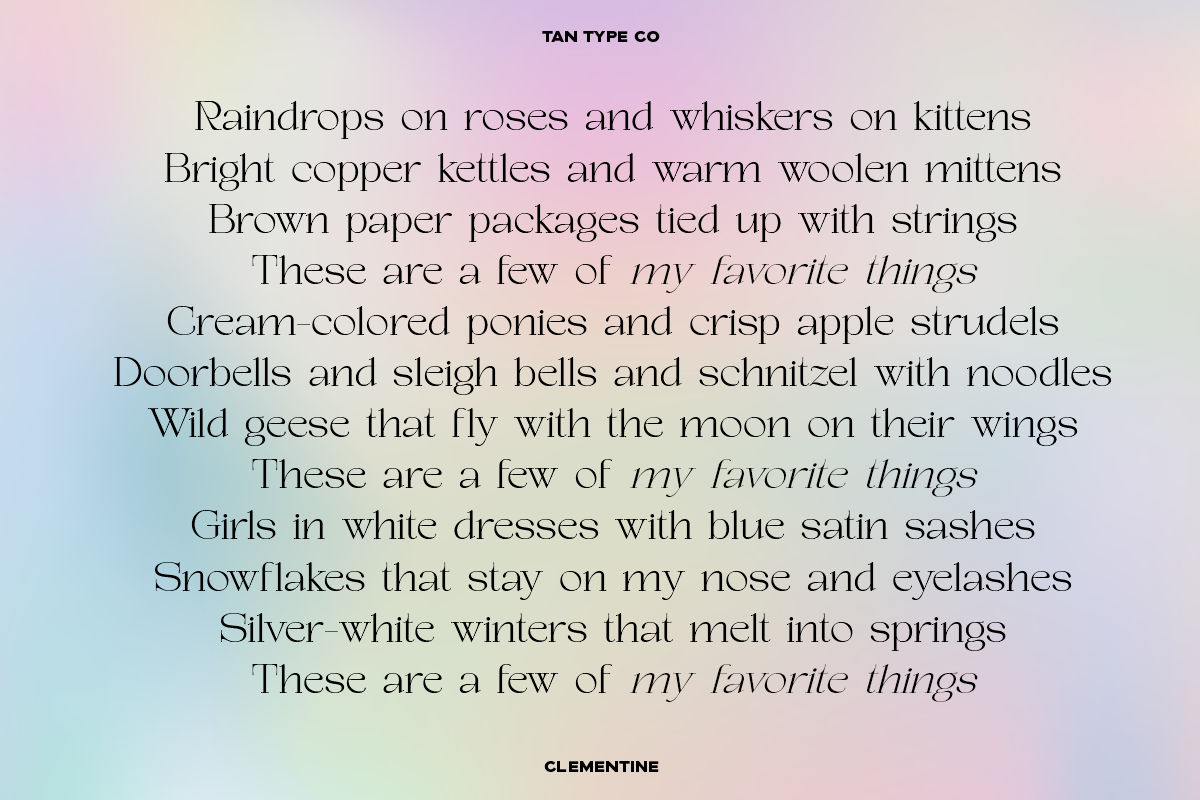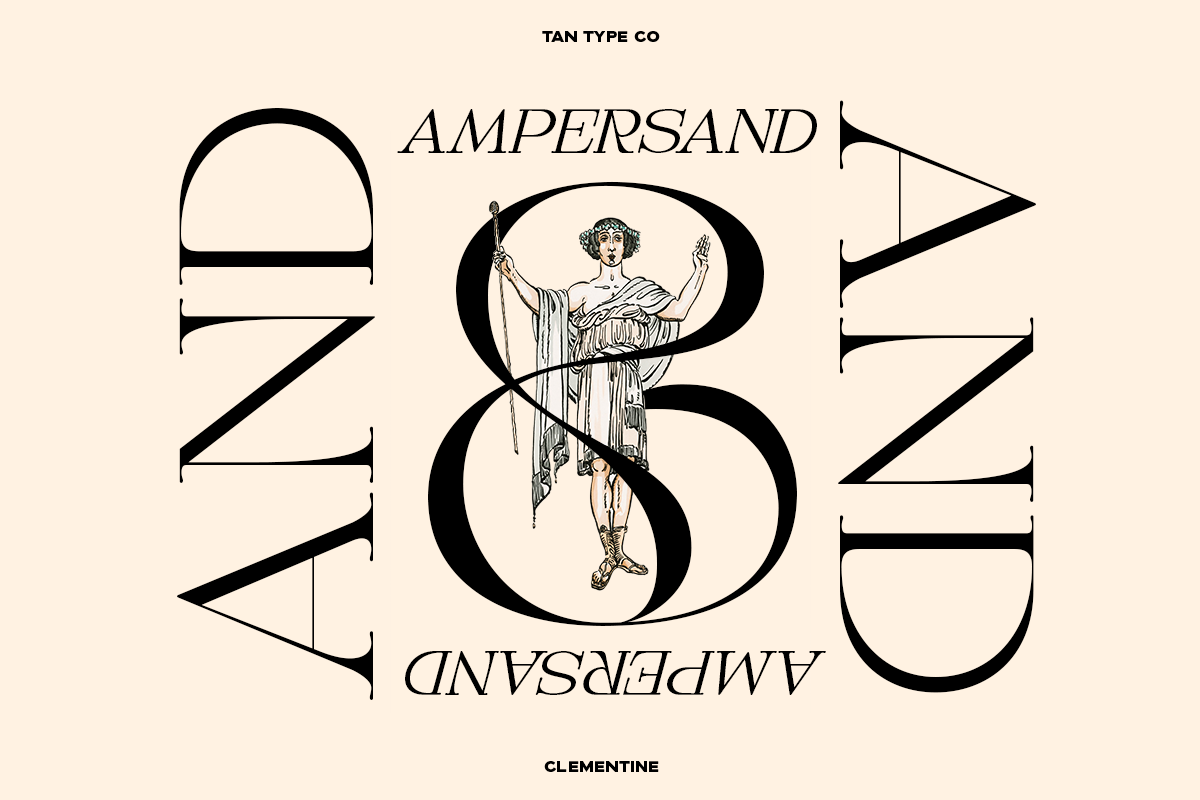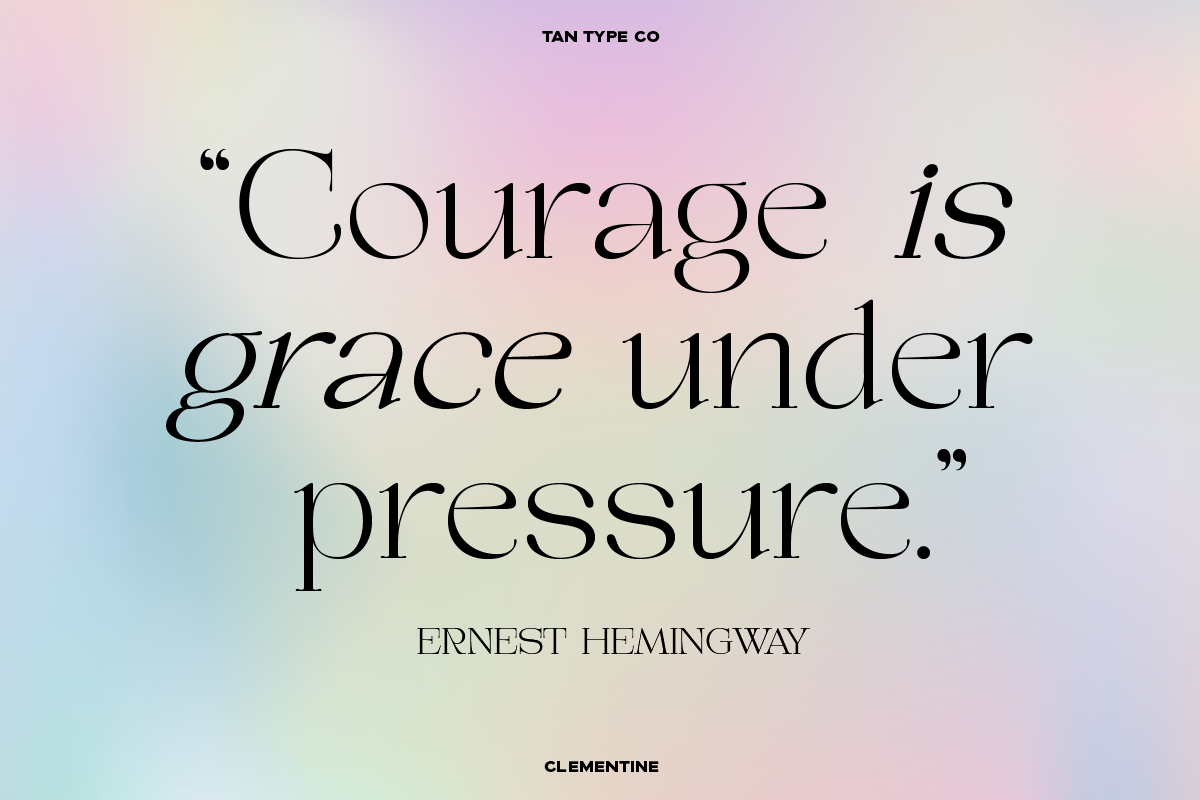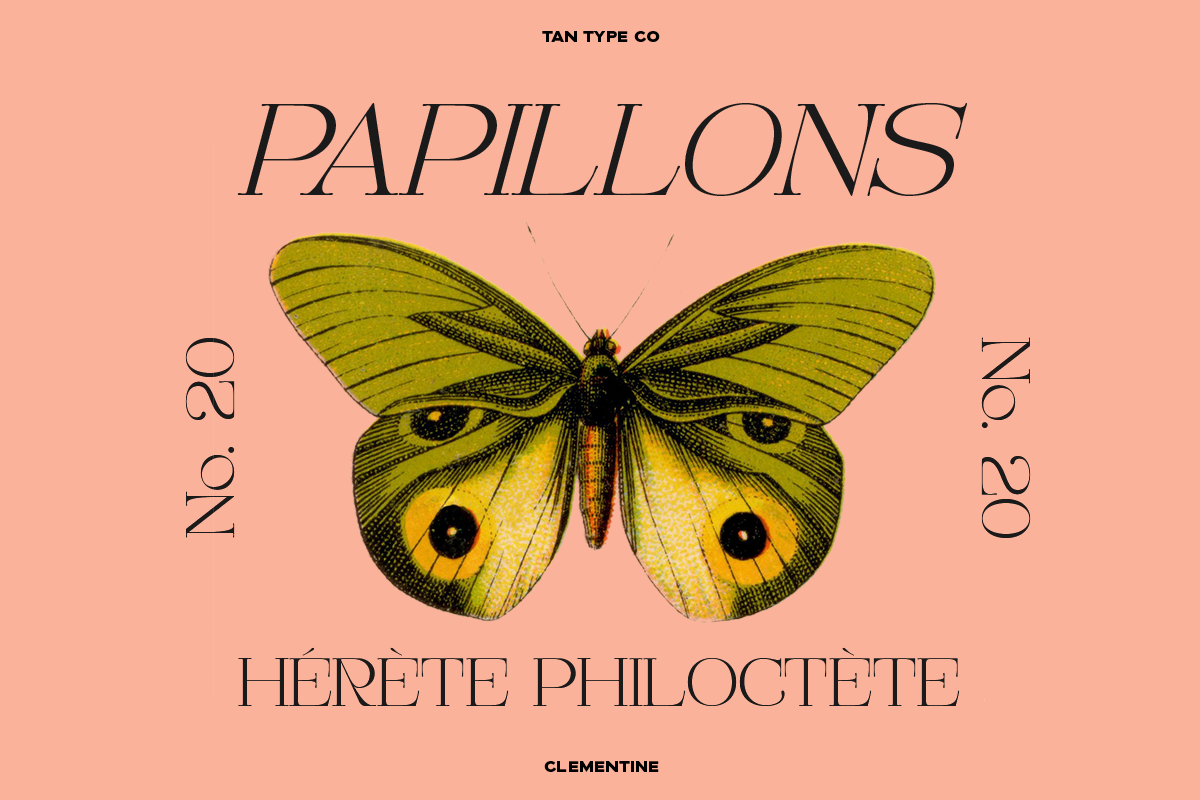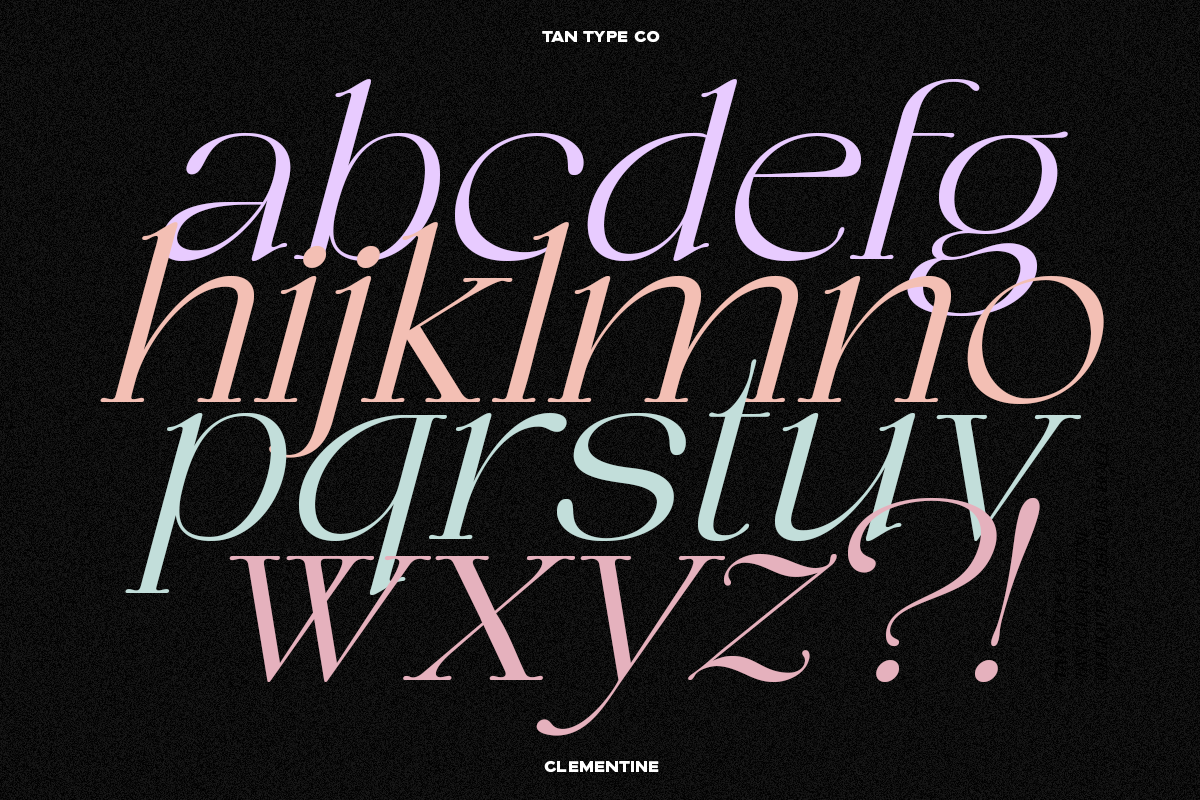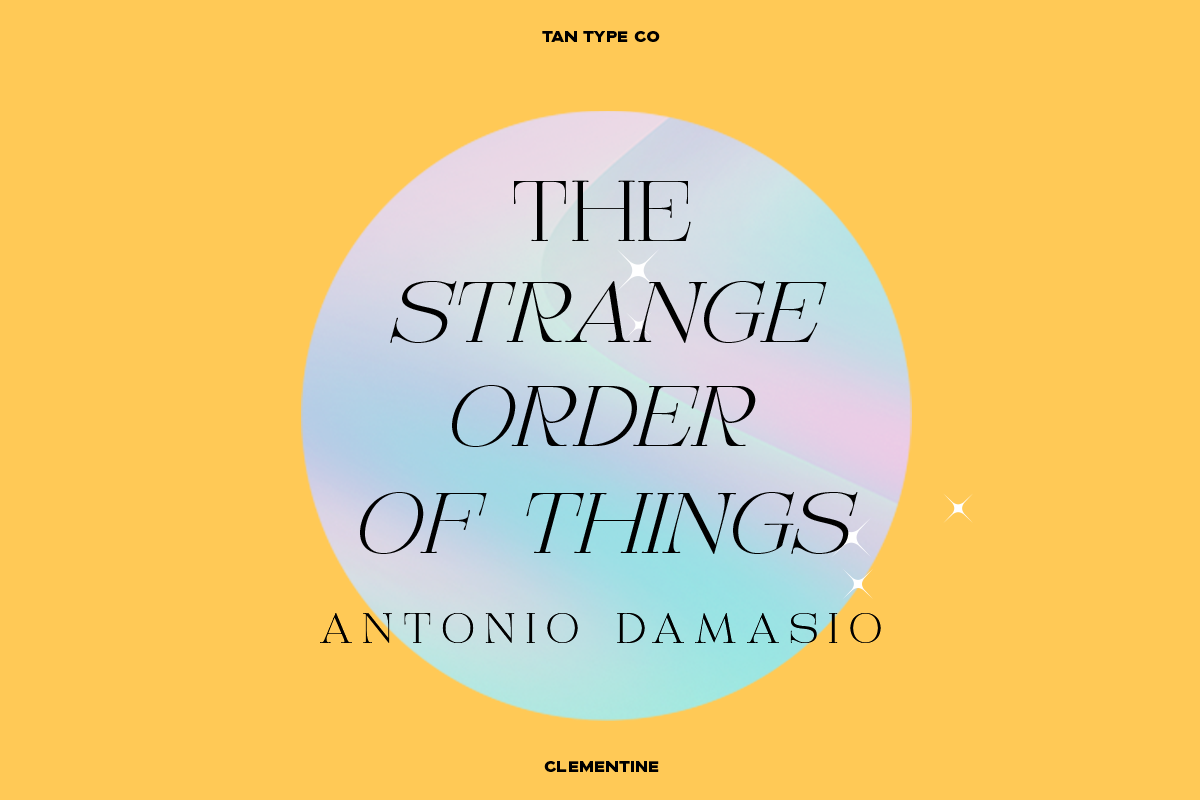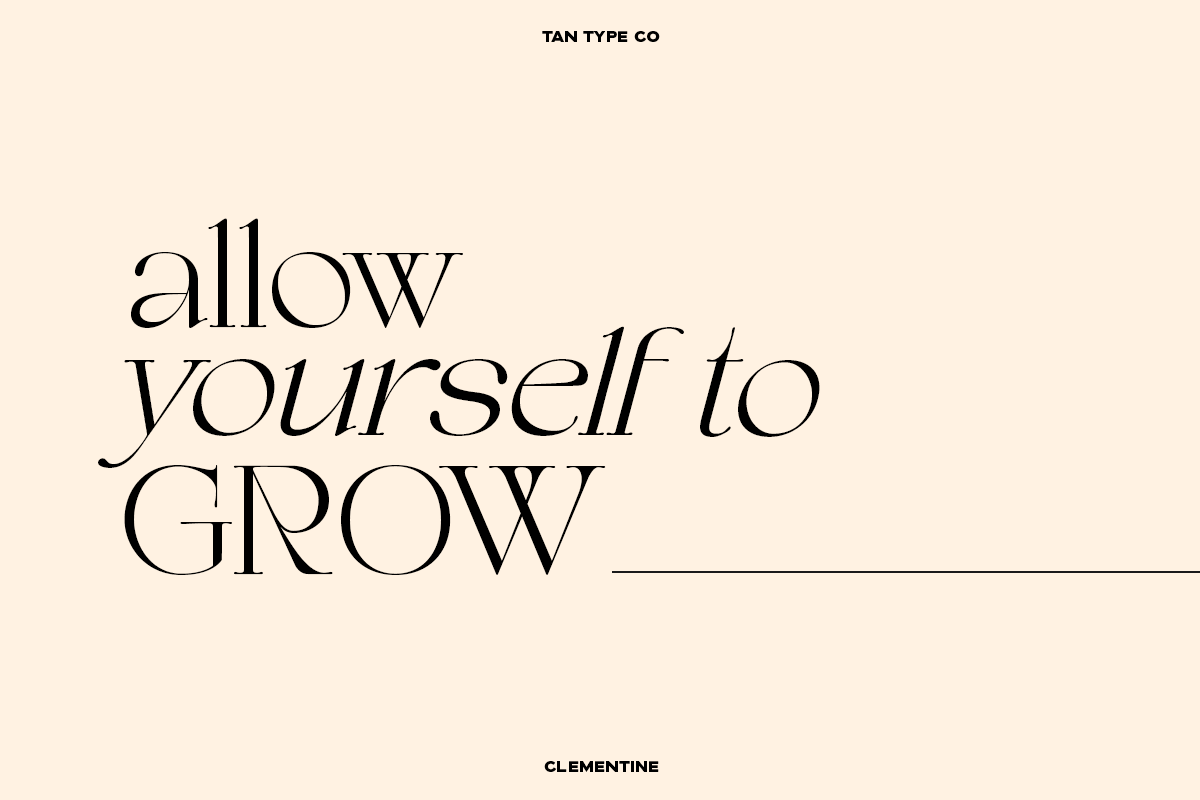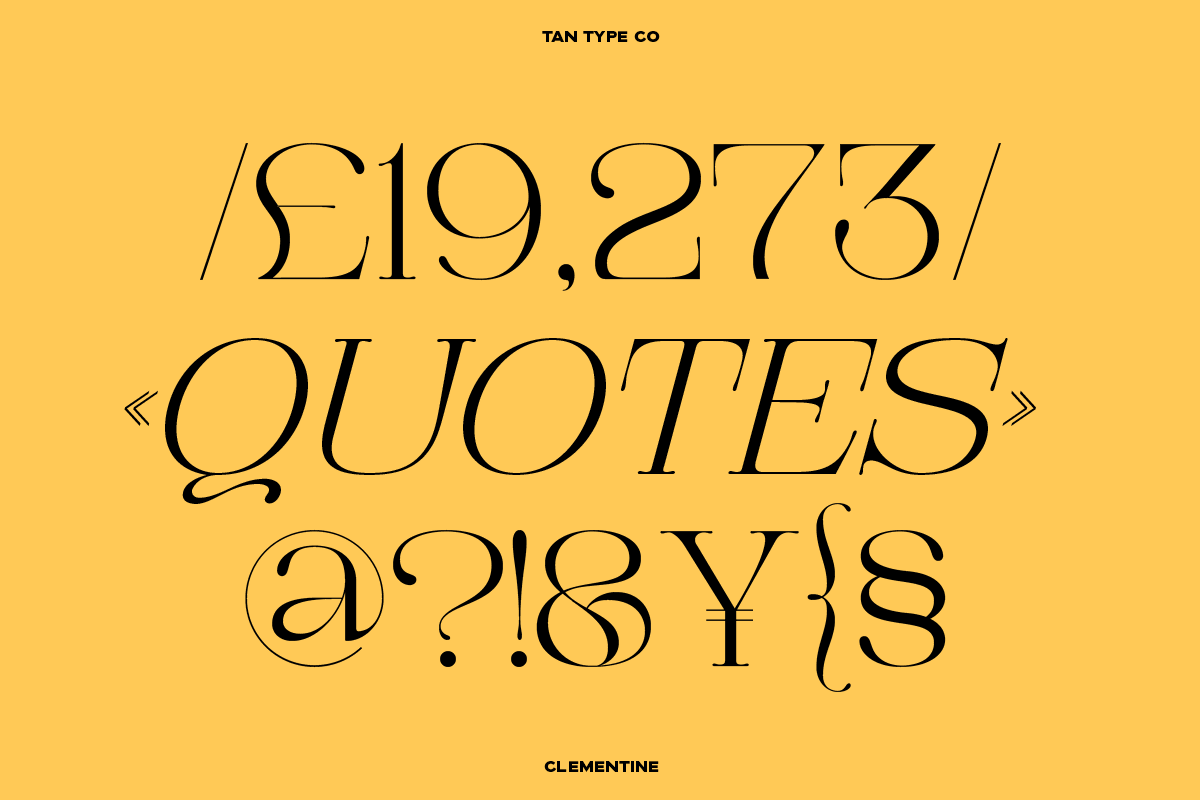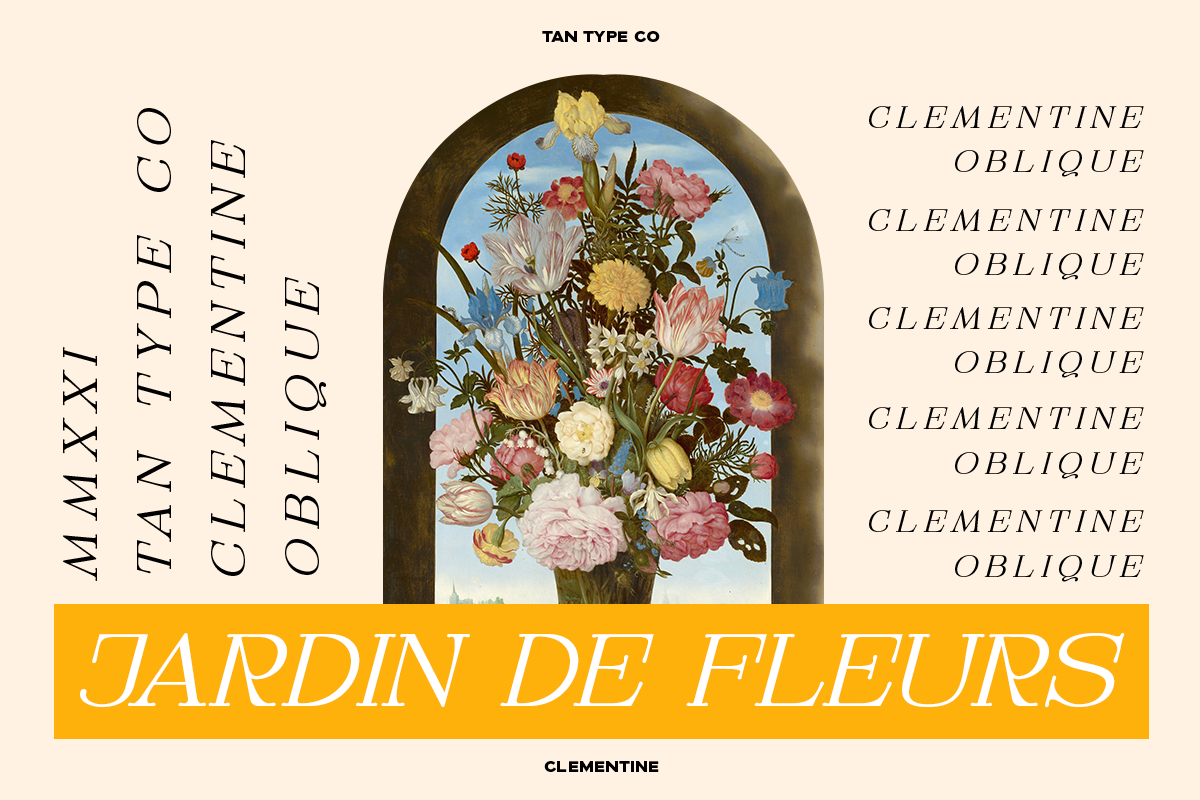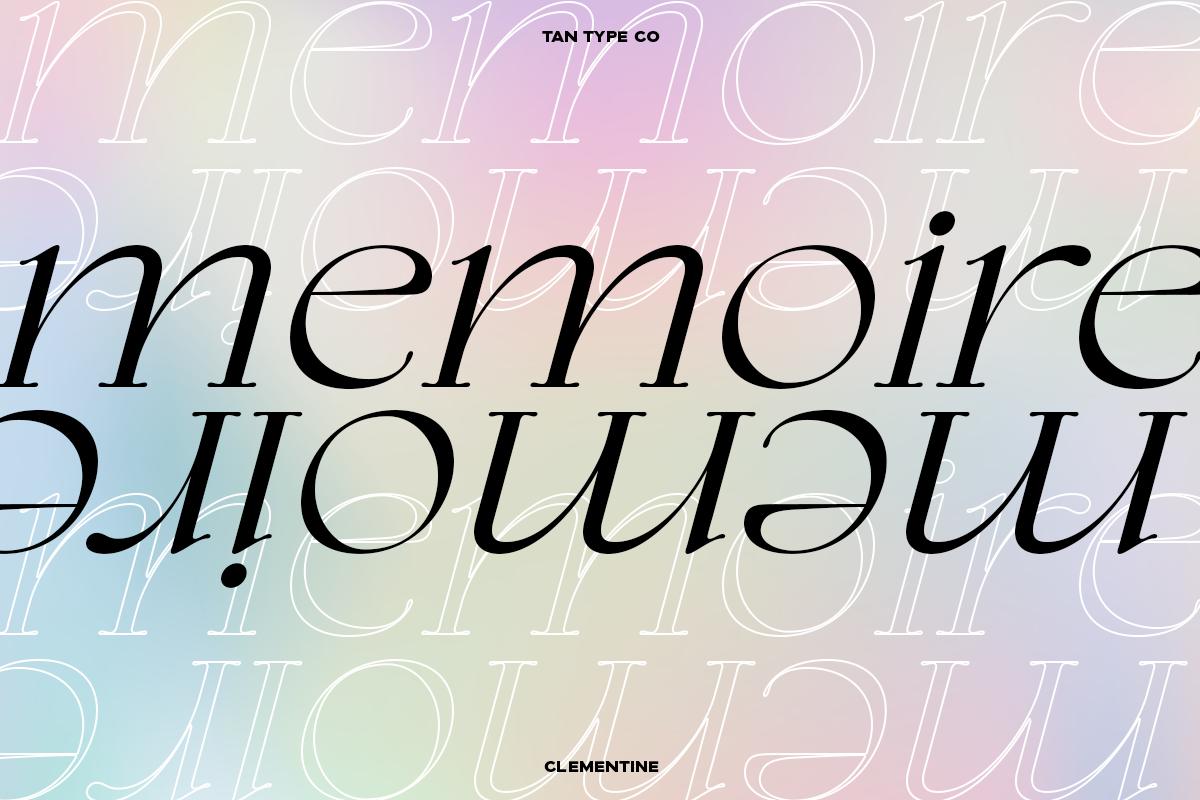
TAN - CLEMENTINE
Tan - Clementine is an elegant, calm, and classy typeface with slightly bulbous serif that added a twist. :) Available in family of four; Regular - Bold - Oblique - Oblique Bold.